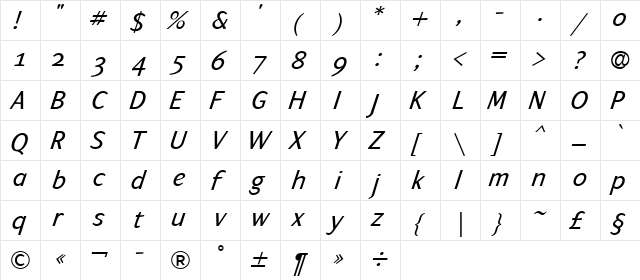
ArtemiusSans SN TT Regular Italic
Design Context for ArtemiusSans SN TT Typeface
ArtemiusSans SN TT is a composed and adaptable typeface that performs quietly and consistently across a wide range of design contexts. The slanted form adds forward momentum and visual energy.